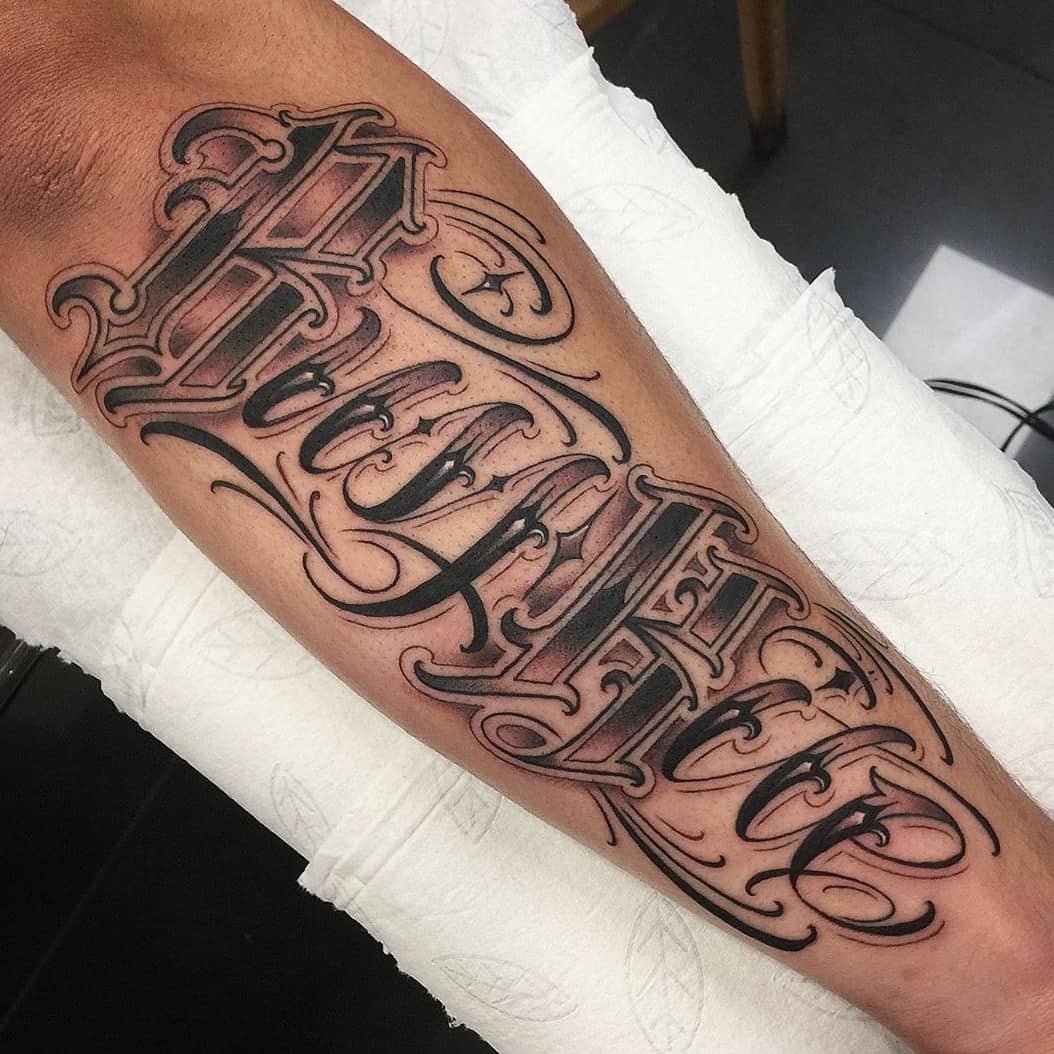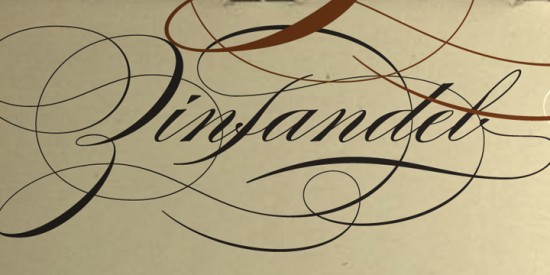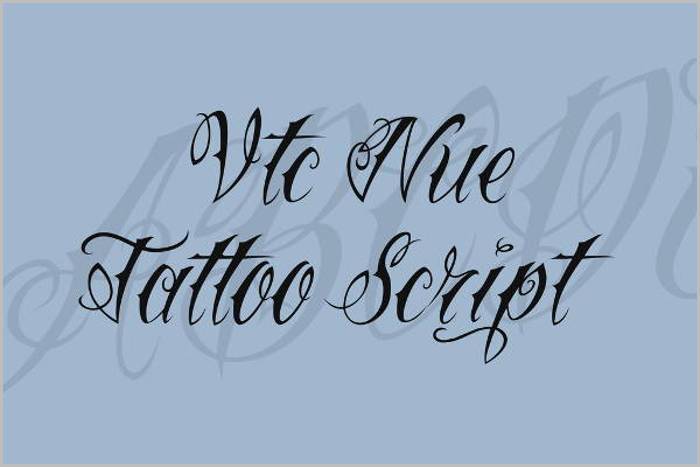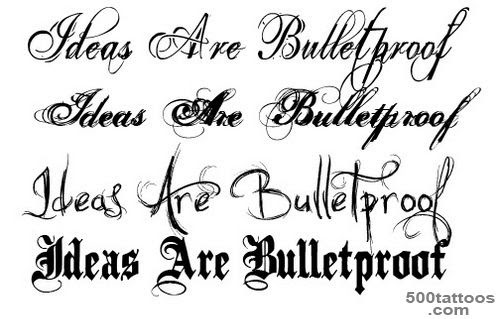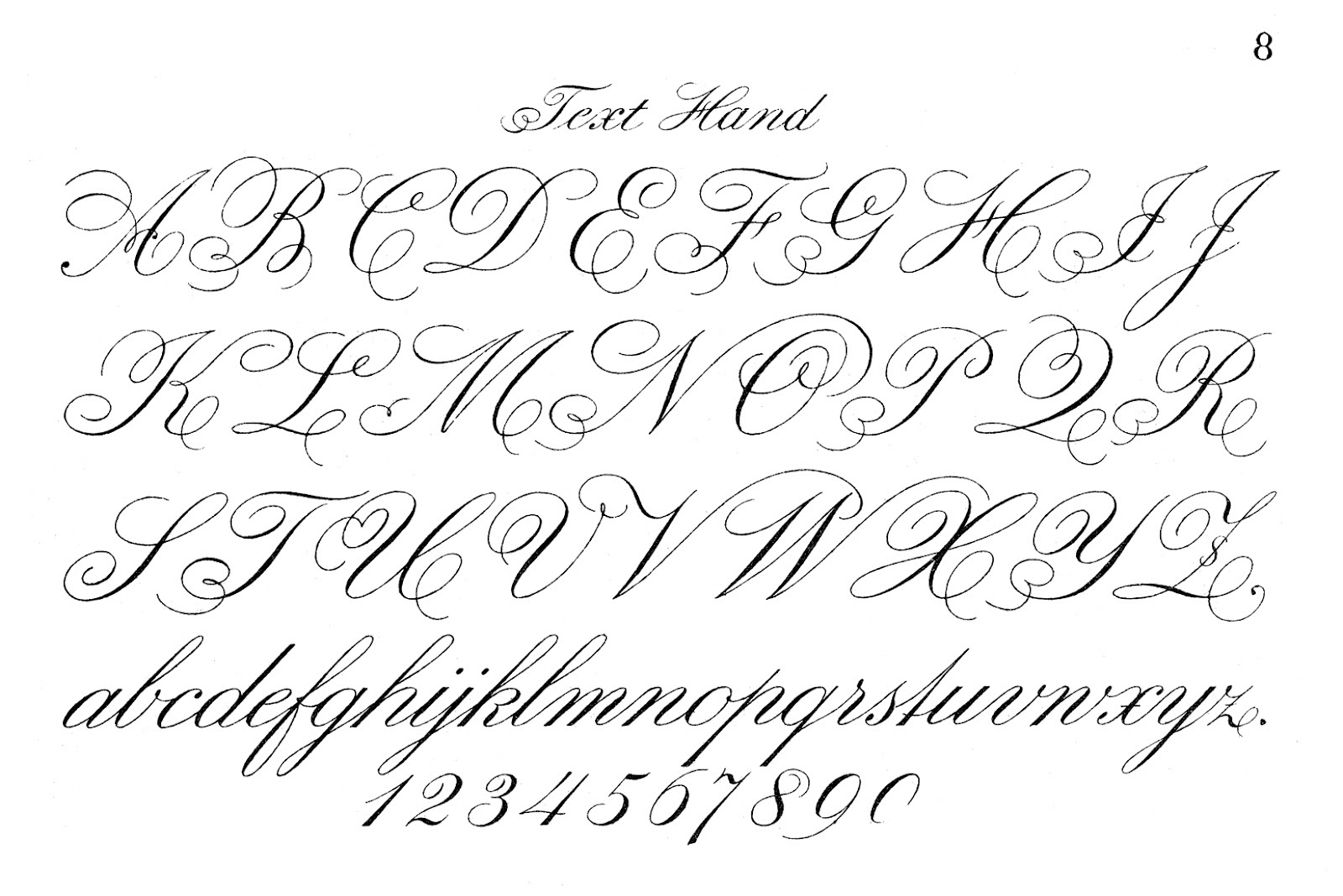
A Collection Of Thin Cursive Fonts That Are Perfect For Tattoos Creative Market Blog
Cursive tattoo calligraphy fonts. Stylish Calligraphy by Mistis Fonts. Letters may be joined or unjoined. Personal Use Free 7104k downloads.
However for different languages cursive writing can mean differently for example for eastern Asian languages like Chinese cursive writing focuses more on the formation and connectedness of strokes within an individual character while for Latin Cyrillic and Arabic. Cursed font is a funky text style which is also known as messed up text. Cursive tattoo fonts which are custom designed by the many tattoo artists across the globe require a lot of artistic talent and personal creativity.
Cursive fonts simply emulate cursive handwriting in which letters are usually connected in a slanted and flowing manner. We have 21 free Tattoo Calligraphy Cursive Fonts to offer for direct downloading 1001 Fonts is your favorite site for free fonts since 2001. Typography fonts hand lettering tattoo fonts cursive tattoo writing fonts tattoo script penmanship tattoo fonts for names tattoos of names roman numeral tattoo font.
Best free tattoo font collection that you can use to create your tattoo. Tribal Fonts Cursive Script Calligraphy and More Most of our fonts are for sale for just 3995. Calligraphy fonts for tattoos are one of the most popular choices for text in the tattoo world.
Aug 17 2019 - Explore ramesh as board cursive hand writing on Pinterest. See more ideas about calligraphy alphabet calligraphy handwriting lettering alphabet. We have 18 free Tattoo Cursive Fancy Script Fonts to offer for direct downloading 1001 Fonts is your favorite site for free fonts since 2001.
Click to find the best 79 free fonts in the Fancy Cursive Tattoo style. We have 37 free Tattoo Script Cursive Fonts to offer for direct downloading 1001 Fonts is your favorite site for free fonts since 2001. See more ideas about tattoo lettering fonts cursive.
Looking for Fancy Cursive Tattoo fonts. Cursive tattoo fonts which are custom designed by the many tattoo artists across the globe require a lot of artistic talent and personal creativity. Cursive Hebrew Fonts Alfabeto Completo hebrew fonts font script handwriting tattoo cursive calligraphy simply lettering hand tattoos alphabet windows styles typography uploaded user cursive fonts hebrew font ol myfonts calligraphy lopez styles ortiz cool verse desktop decorative jewish bible aw complete poster waw hebrew cursive font groovy deviantart hebrew cursive font handwriting.
Cursive fonts mimic the style of human penmanship where the letters flow together. Download 10000 fonts with one click for 1995. See more ideas about lettering alphabet lettering fonts fonts alphabet.
The cursive handwriting style is functional and intended to be used for everyday writing. For more artistic styles you will want to look at calligraphy or hand-lettering. Fortunately we have many unique tattoo font styles for men and women such as calligraphy cursive and traditional styles.
See more ideas about graffiti lettering fonts tattoo fonts cursive tattoo lettering fonts. Oct 4 2015 - Explore Littel Adrians board cursive on Pinterest. Picking a font for your next tattoo is a very important decision.
Ready to personalize and share in facebook and twitter. Payment grants you a full license and permission to use our fonts commercially. Watermelon Script by Mistis Fonts.
Basically if you make profit you will need a license. The word calligraphy itself stands for handwritten lettering and is a combination of written text and artwork rolled into one.